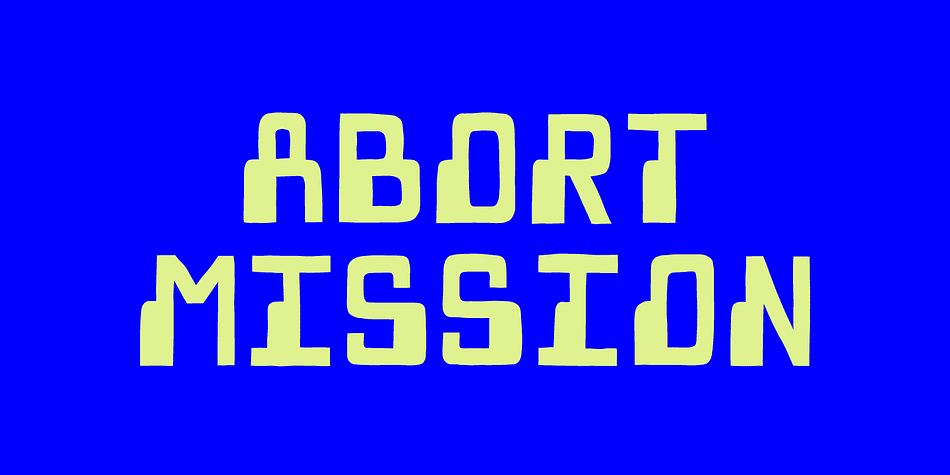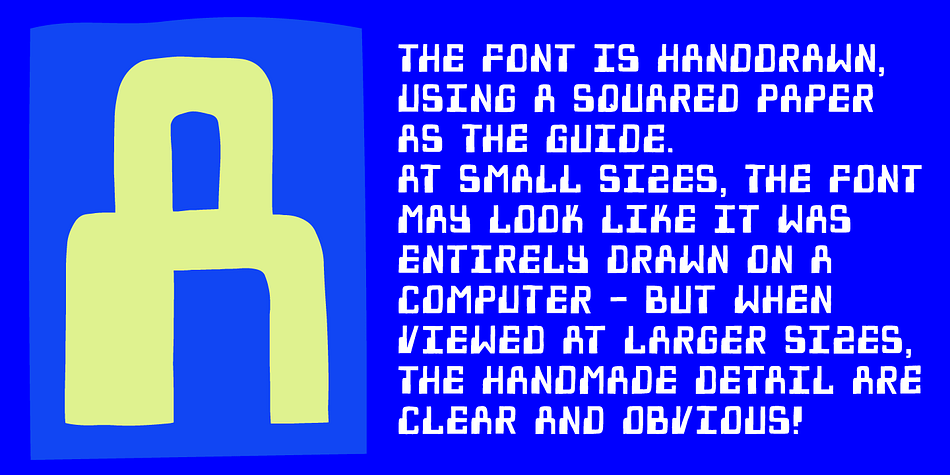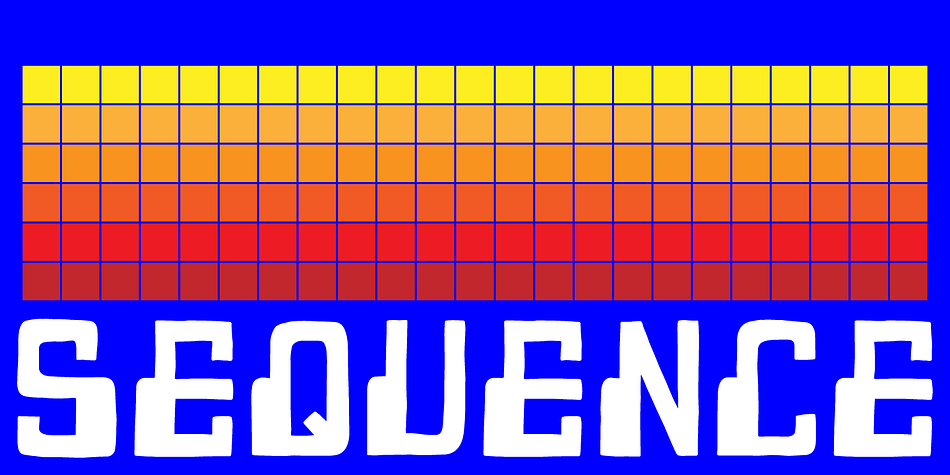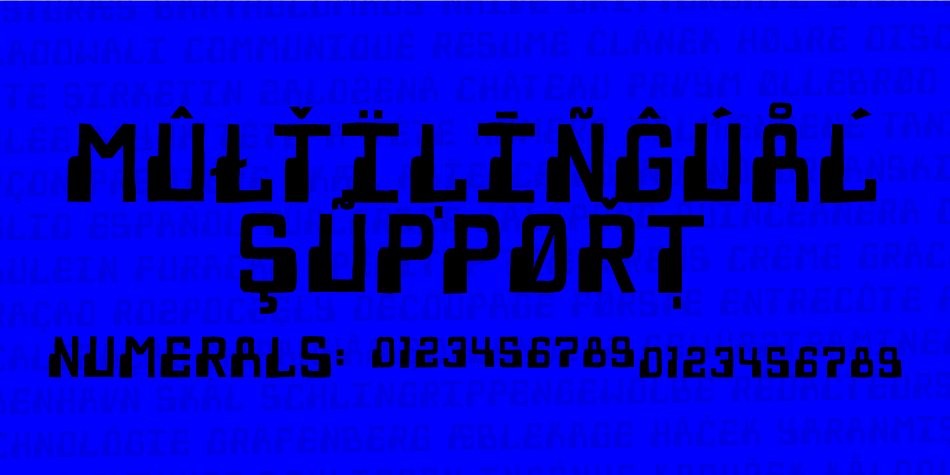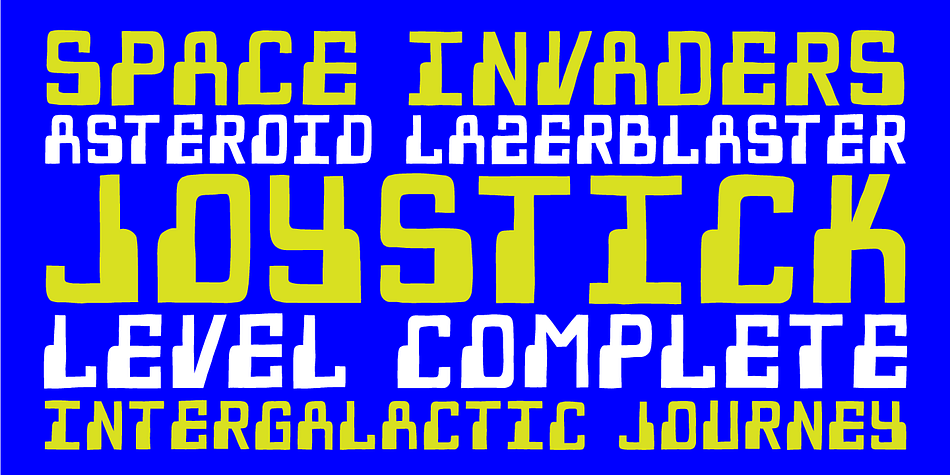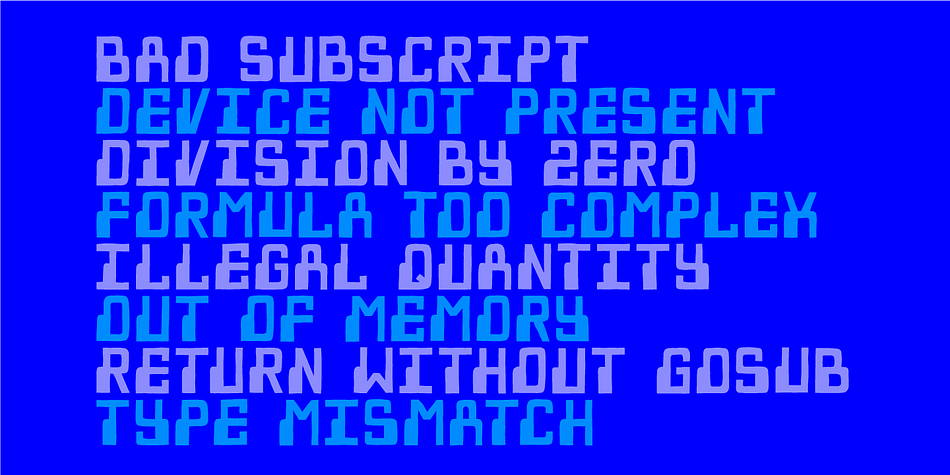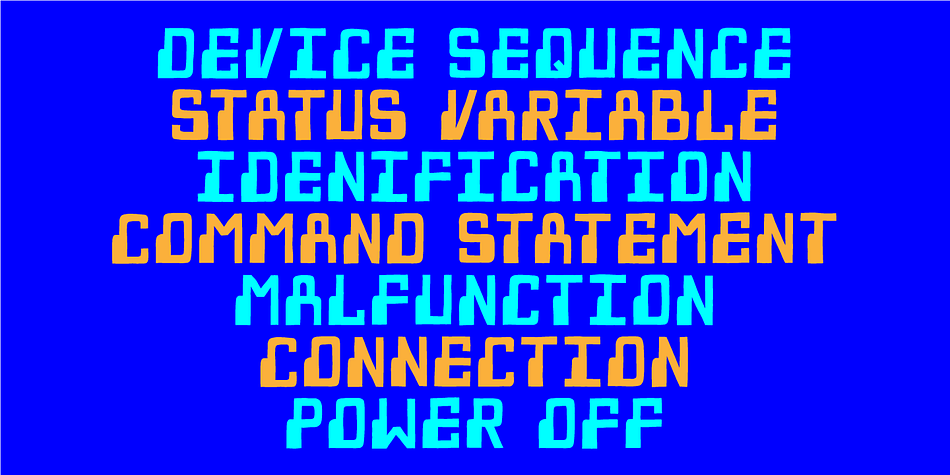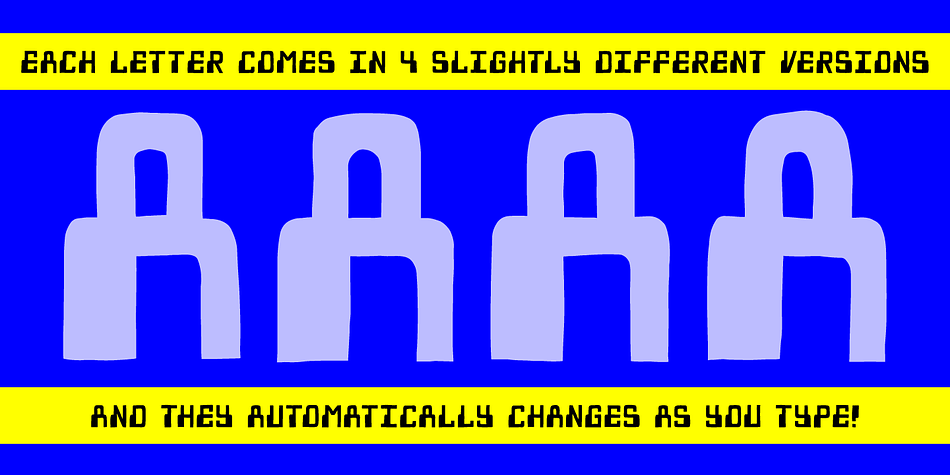
Designed by Jakob Fischer, Abort Mission is a pixel and retro font family. This typeface has two styles and was published by Pizzadude.dk.
This is the kind of letters I drew in school back in the 1980ies. I would never have guessed that I would do the same thing like 40 years later!
I remember making a simple space game for my VIC-20 computer, and I needed some “data letters” (as I called it) - as far as I can remember, this is close to what I made 40-like years ago.
Also, I was inspired by the well known series “Stranger Things” - you know, all that 80ies theme stuff took me down memory lane! :)
Anyway, all the letters are handdrawn, using a squared paper as guide - at it may look simple, but it took me quite some time to finish this font (hence the name!)